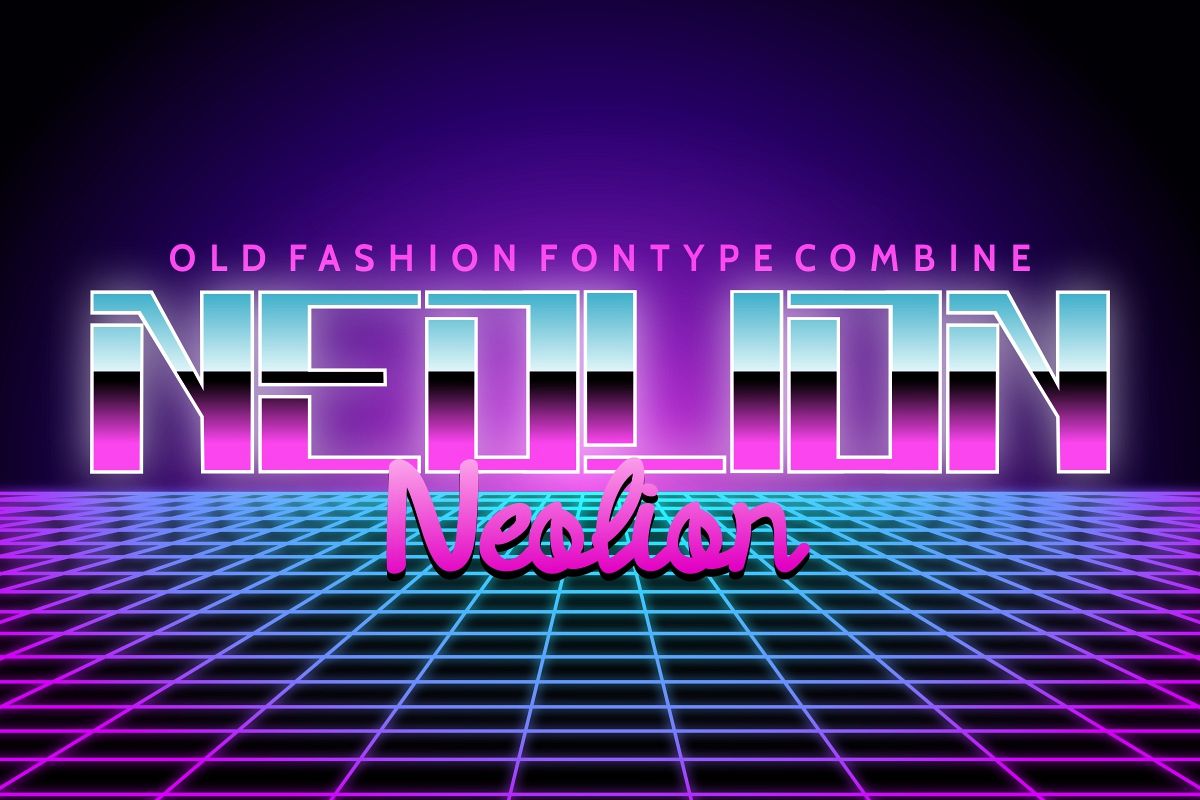
Neolion
Please meet our newest font : Neolion ! This is a DUO FONT with modern yet retro style sans serif PLUS calligraphy pen writing script. Unique and exclusiveThis font will Work on PC & Mac with Simple installations. Accessible in the Adobe Illustrator, Adobe Photoshop, Adobe InDesign, even work on Microsoft Word. It’s also PUA Encoded Characters – Fully accessible without additional design software.Purchase with confidence! =)